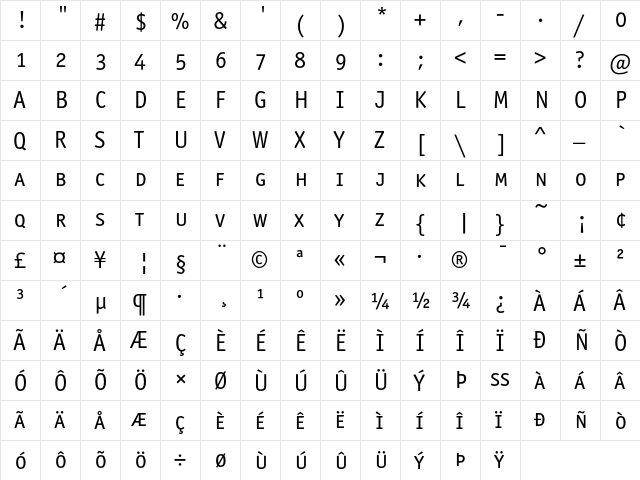
OfficinaSansITC Book SC
Design Context for OfficinaSansITC Typeface
OfficinaSansITC takes a measured approach to typography — its balanced proportions and neutral character make it a reliable workhorse for both digital and print work.